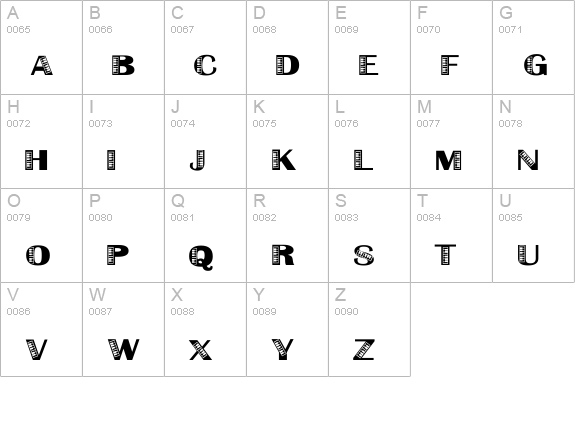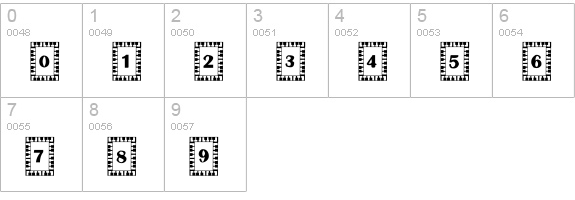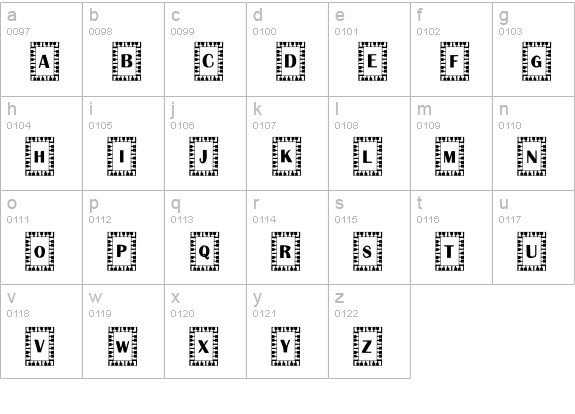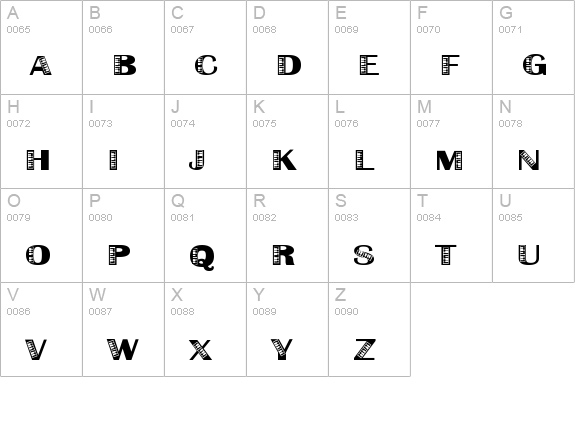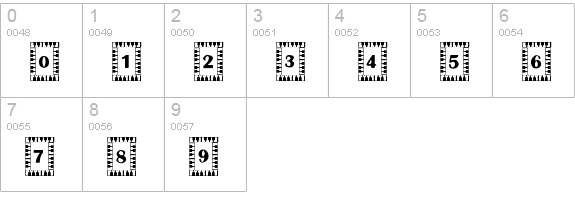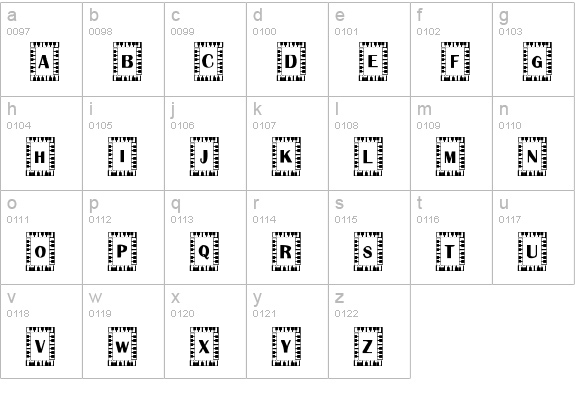
Liberace Font Details
The Liberace font is a stunning display typeface that exudes elegance and sophistication. With its intricate details and graceful curves, this font is perfect for adding a touch of luxury to any design project. The ornate flourishes and stylish letterforms of Liberace make it a truly unique choice for invitations, signage, and branding materials. What makes Liberace even more special is that it is available for free download at FontsMarket.com. This means you can easily access this exquisite font and use it in your creative projects without any cost. Don't miss out on the opportunity to elevate your designs with the timeless beauty of the Liberace font. Download it now and add a touch of glamour to your work!